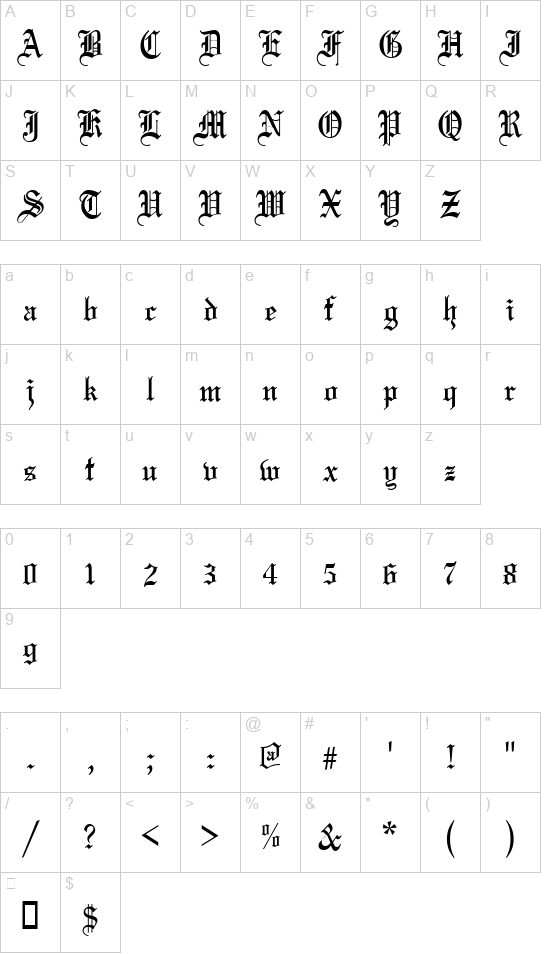
Old English Font Translator
Old English Font Translator - It is also known as. Web how to use old english font generator. The old english script makes your designs look like they are from the middle ages. Web this translator takes the words you put in it (in modern english) and makes them sound like you are from shakespeare's times. This generator converts simple text into old english text also known as blackletter. Web what is old english text convert tool? Web the old english translator is an online tool that allows users to convert their text into the classic old english font style.
Web this translator takes the words you put in it (in modern english) and makes them sound like you are from shakespeare's times. Web what is old english text convert tool? It is also known as. Web how to use old english font generator. Web the old english translator is an online tool that allows users to convert their text into the classic old english font style. This generator converts simple text into old english text also known as blackletter. The old english script makes your designs look like they are from the middle ages.
It is also known as. Web what is old english text convert tool? Web how to use old english font generator. The old english script makes your designs look like they are from the middle ages. Web the old english translator is an online tool that allows users to convert their text into the classic old english font style. Web this translator takes the words you put in it (in modern english) and makes them sound like you are from shakespeare's times. This generator converts simple text into old english text also known as blackletter.
Old English Fonts
It is also known as. Web the old english translator is an online tool that allows users to convert their text into the classic old english font style. Web what is old english text convert tool? This generator converts simple text into old english text also known as blackletter. Web this translator takes the words you put in it (in.
Olde English Font
Web the old english translator is an online tool that allows users to convert their text into the classic old english font style. Web how to use old english font generator. Web what is old english text convert tool? It is also known as. This generator converts simple text into old english text also known as blackletter.
Web this translator takes the words you put in it (in modern english) and makes them sound like you are from shakespeare's times. Web how to use old english font generator. The old english script makes your designs look like they are from the middle ages. Web what is old english text convert tool? It is also known as.
Web this translator takes the words you put in it (in modern english) and makes them sound like you are from shakespeare's times. Web how to use old english font generator. The old english script makes your designs look like they are from the middle ages. It is also known as. This generator converts simple text into old english text.
The old english script makes your designs look like they are from the middle ages. Web the old english translator is an online tool that allows users to convert their text into the classic old english font style. Web what is old english text convert tool? This generator converts simple text into old english text also known as blackletter. It.
Olde English font
Web how to use old english font generator. Web the old english translator is an online tool that allows users to convert their text into the classic old english font style. Web this translator takes the words you put in it (in modern english) and makes them sound like you are from shakespeare's times. This generator converts simple text into.
Old English Font Digital Download TTF File Etsy in 2022 English
This generator converts simple text into old english text also known as blackletter. Web what is old english text convert tool? The old english script makes your designs look like they are from the middle ages. Web this translator takes the words you put in it (in modern english) and makes them sound like you are from shakespeare's times. Web.
Old english letters font free for converter lpofriendly
Web this translator takes the words you put in it (in modern english) and makes them sound like you are from shakespeare's times. It is also known as. The old english script makes your designs look like they are from the middle ages. Web the old english translator is an online tool that allows users to convert their text into.
10+ Best Old English Fonts for 2021 Free and Premium Fonts
It is also known as. The old english script makes your designs look like they are from the middle ages. Web how to use old english font generator. Web what is old english text convert tool? Web the old english translator is an online tool that allows users to convert their text into the classic old english font style.
It Is Also Known As.
Web the old english translator is an online tool that allows users to convert their text into the classic old english font style. Web what is old english text convert tool? Web this translator takes the words you put in it (in modern english) and makes them sound like you are from shakespeare's times. The old english script makes your designs look like they are from the middle ages.
Web How To Use Old English Font Generator.
This generator converts simple text into old english text also known as blackletter.